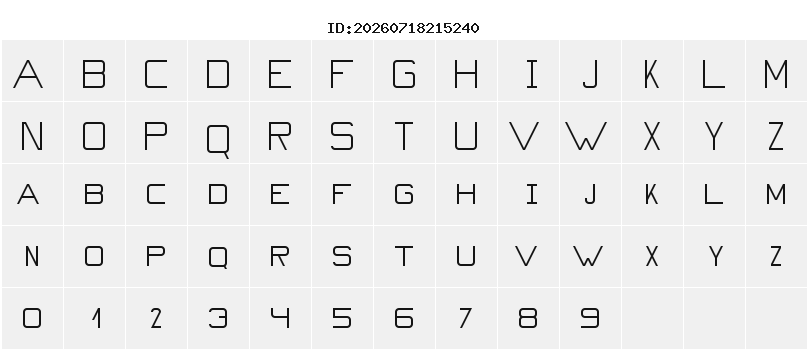
• Font Name: Countdowner
• Full Font Name: Countdowner Regular
• Designer: Noronha
• Description: ‚ÄúCountdowner‚Äù was built with FontStruct
About Countdowner.ttf
Countdowner.ttf is a modern, elegant sans-serif font designed for ultimate readability and visual harmony. Perfect for branding, headlines, web design, and print materials.